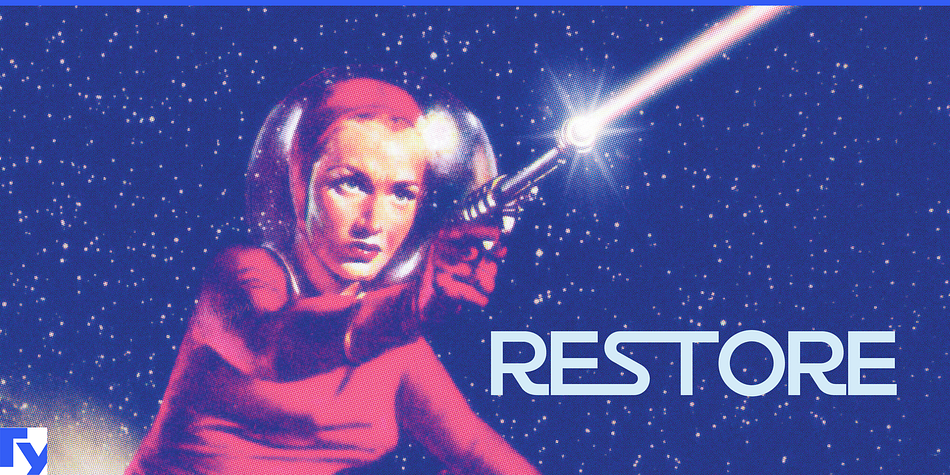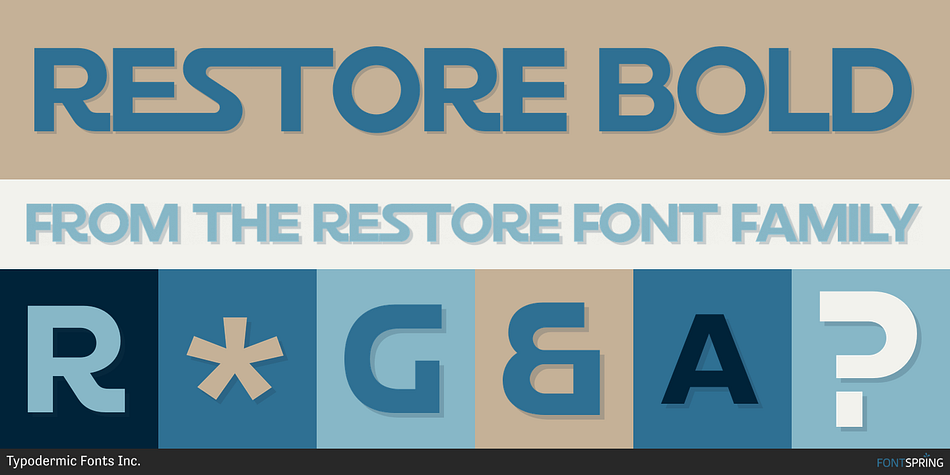
RESTORE BOLD
Restore is a display sans font family. This typeface has seven styles and was published by Typodermic Fonts Inc.
Introducing Restore, the headline typeface that pays homage to the early 20th century German sign lettering. Its geometric structure and logical design might fool you into thinking it’s straightforward. But take a closer look, and you’ll see how each letter is visually adjusted and perfectly balanced, giving it a unique industrial edge.
But what really sets Restore apart is its interlocking letterforms. The tight spacing and intentional overlap of certain letters, such as “RS” and “ST”, create a striking, dynamic effect that adds depth and dimension to any design.
Whether you’re looking to create eye-catching headlines, bold logos, or sleek branding, Restore has got you covered. And with seven different weights to choose from, you can find just the right balance of strength and style for your project.
So if you’re ready to elevate your designs with a typeface that seamlessly blends the past with the future, give Restore a try. Your audience won’t be able to take their eyes off it.